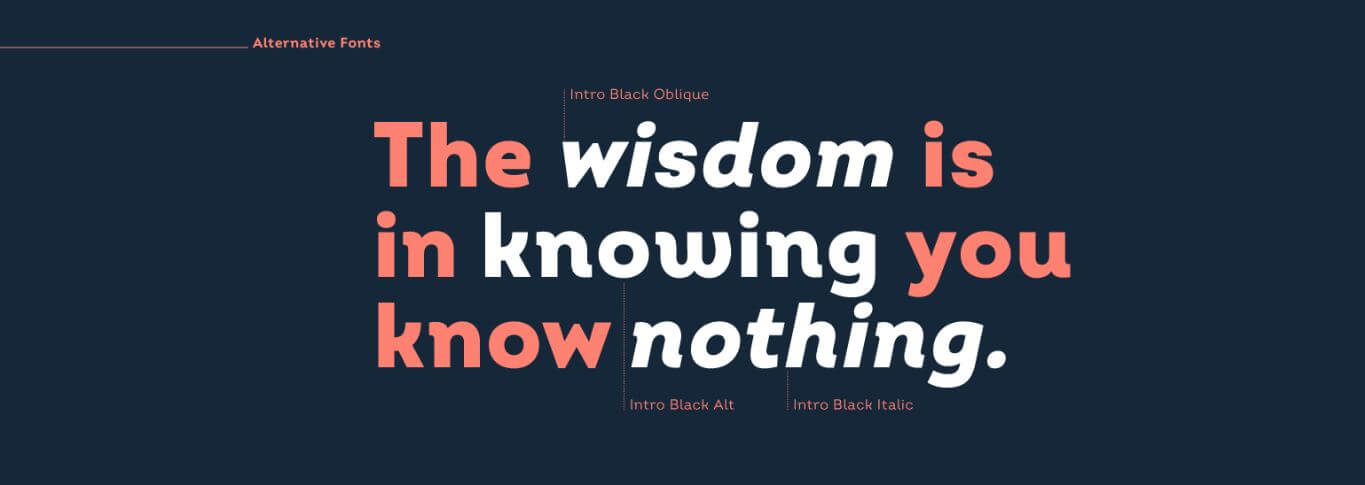
Intro Font
The factor that sets apart the brand new Intro Font from font fabric is its distinct geometric design and structure. The basic letters of the alphabet such as “a”, “o”, and “h” are constructed based on simple geometric shapes like triangles, circles, and squares.
Even though Intro is similar to brusher font technically optimized for use on the net, it additionally works well in print initiatives.
Style Of Intro Font